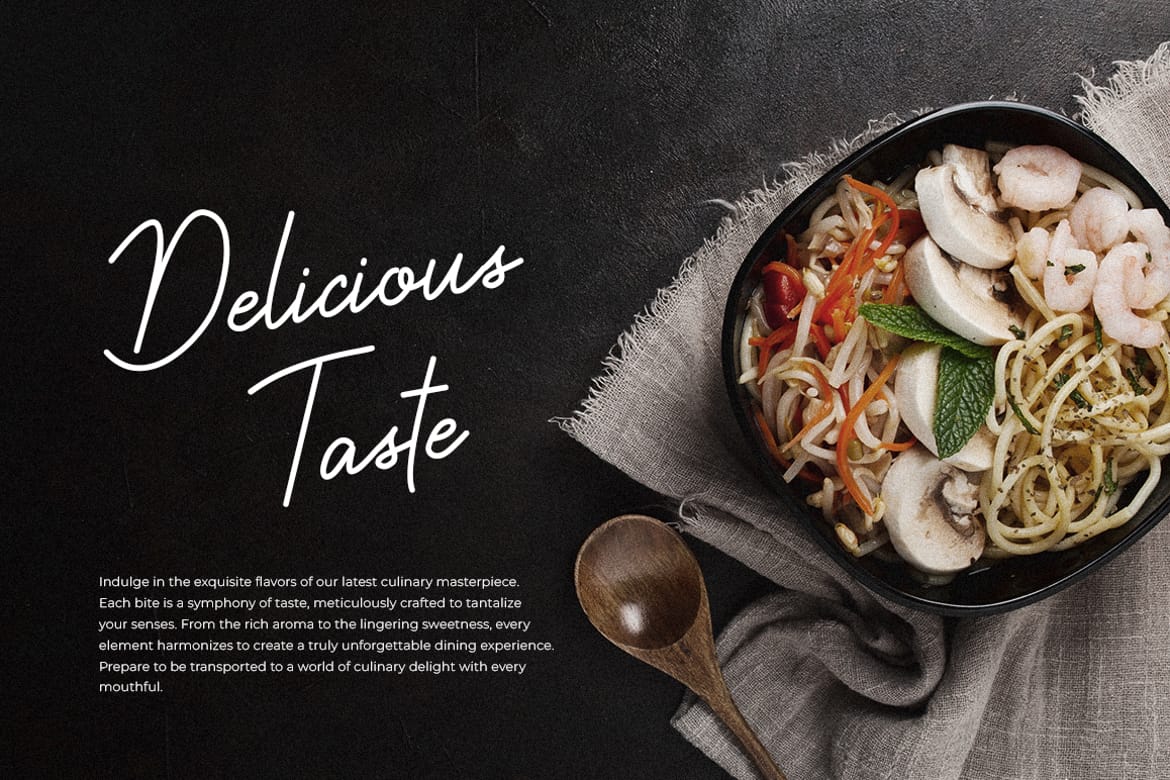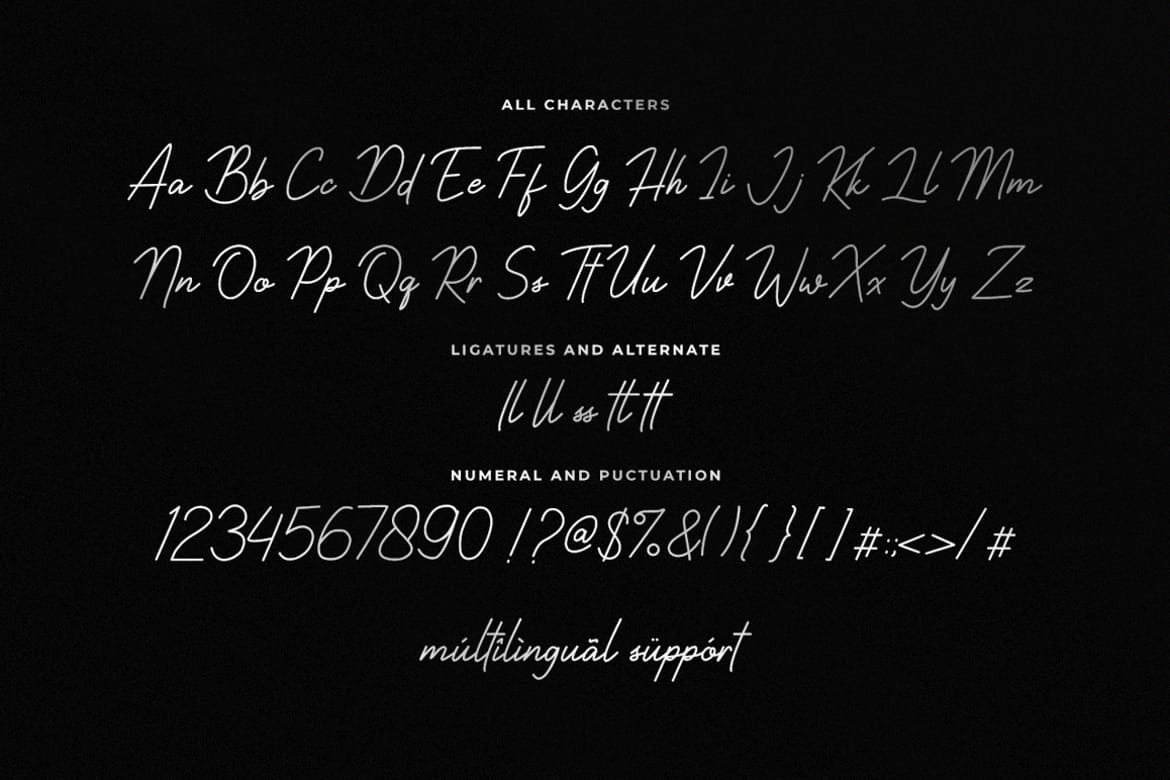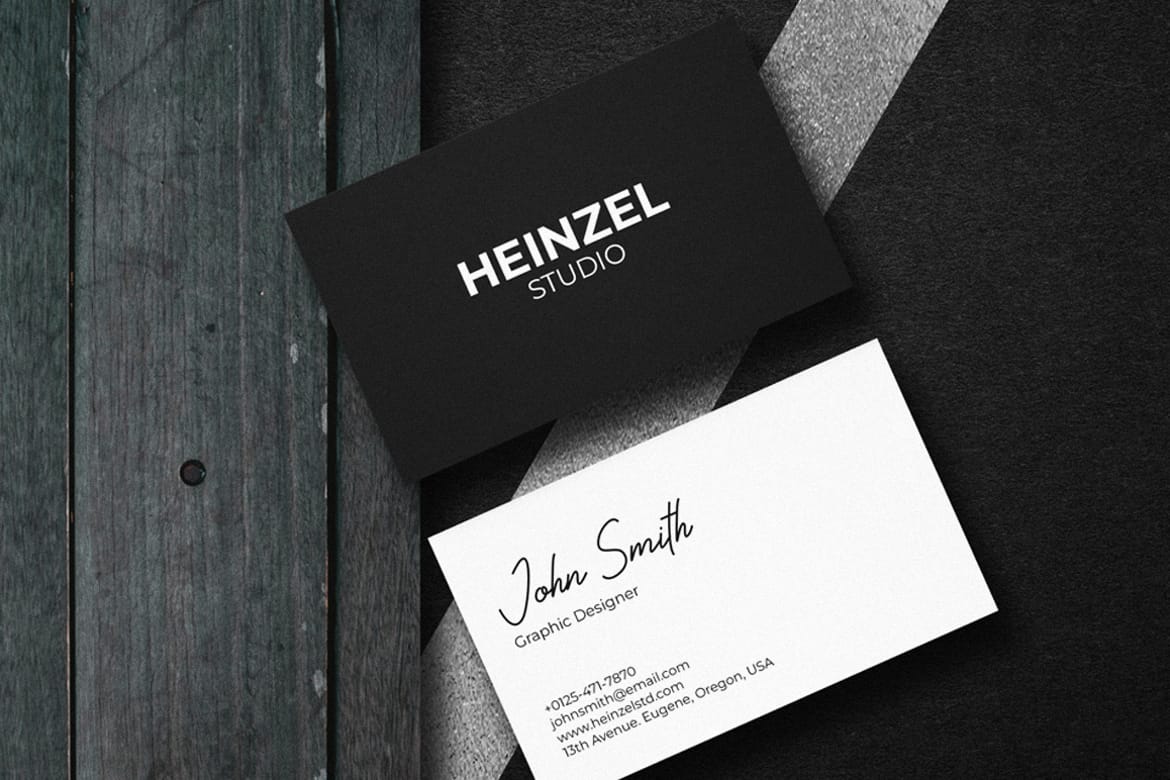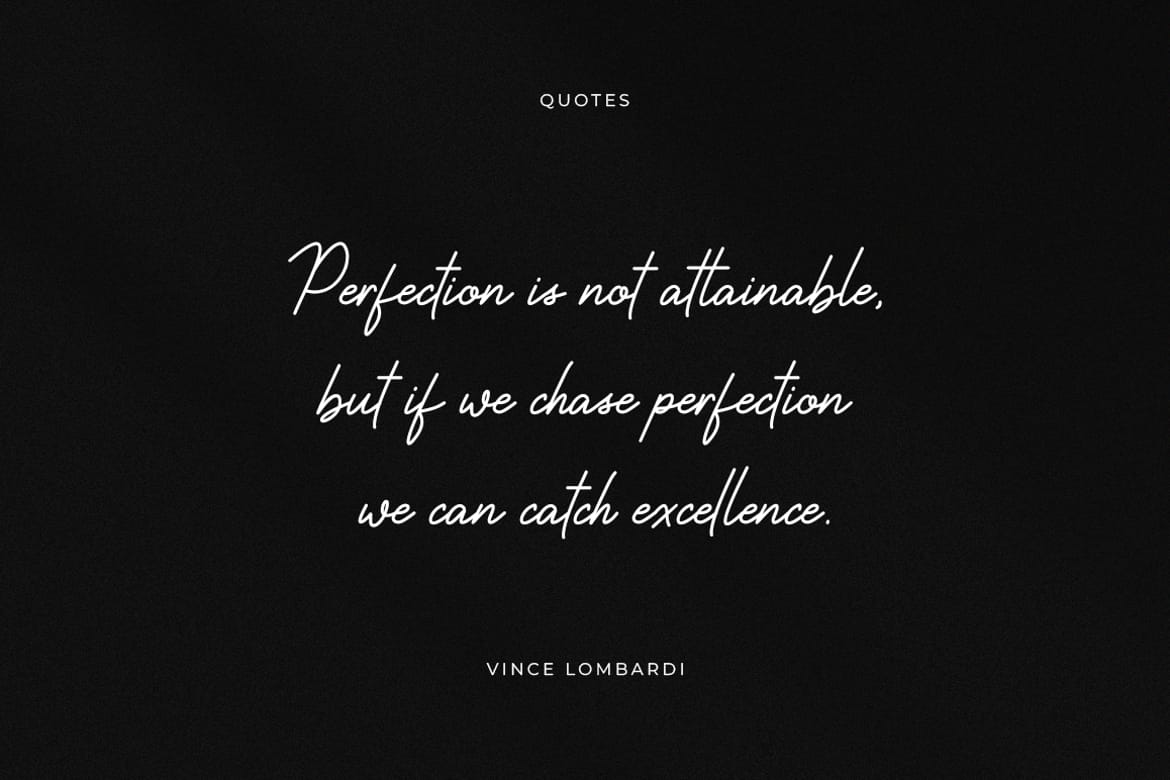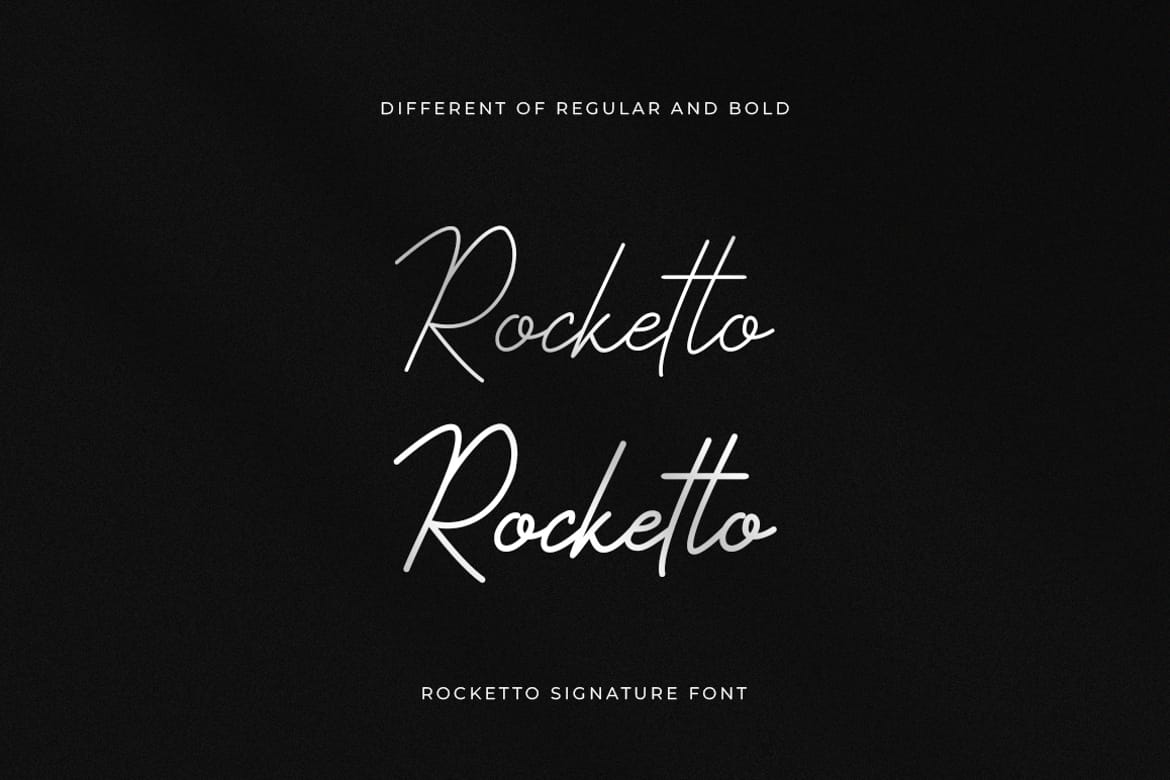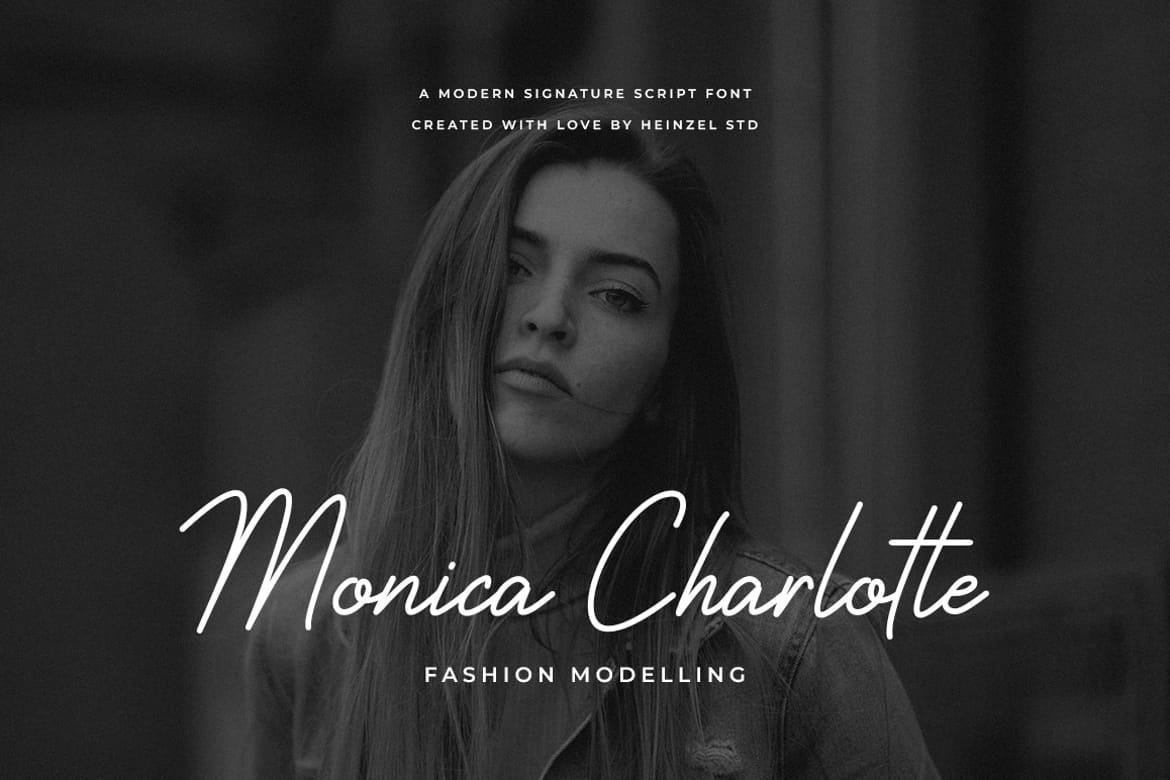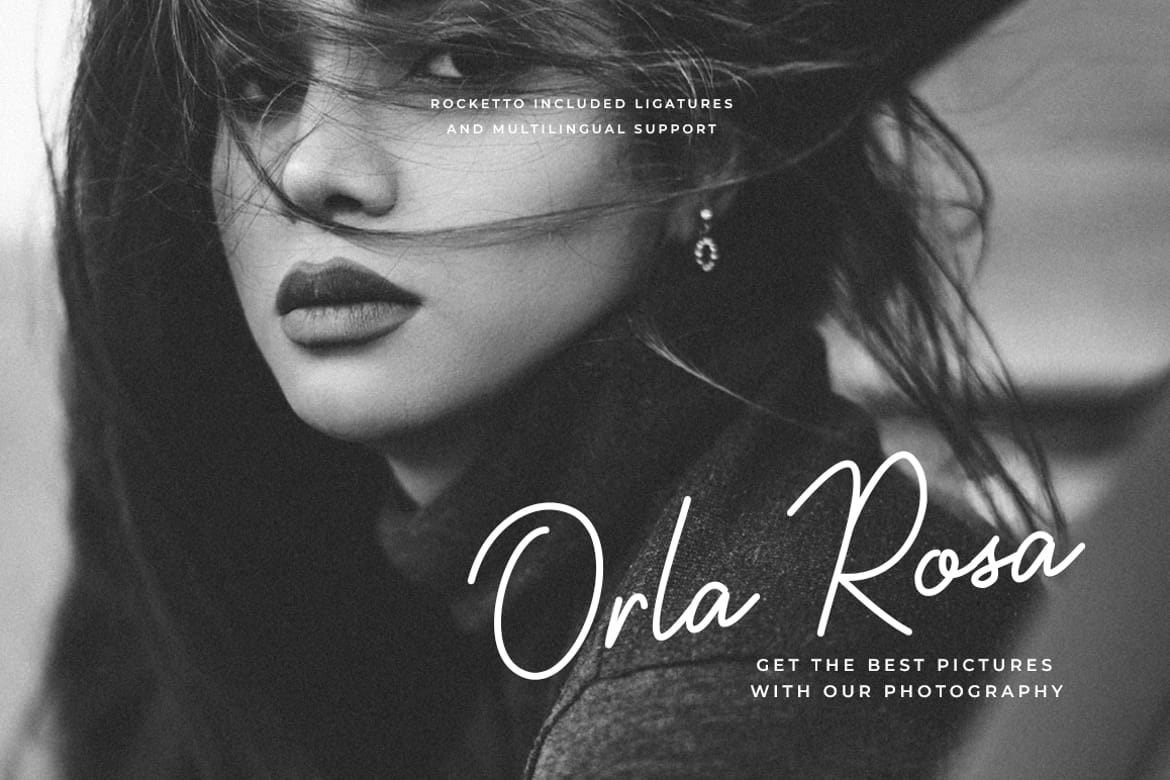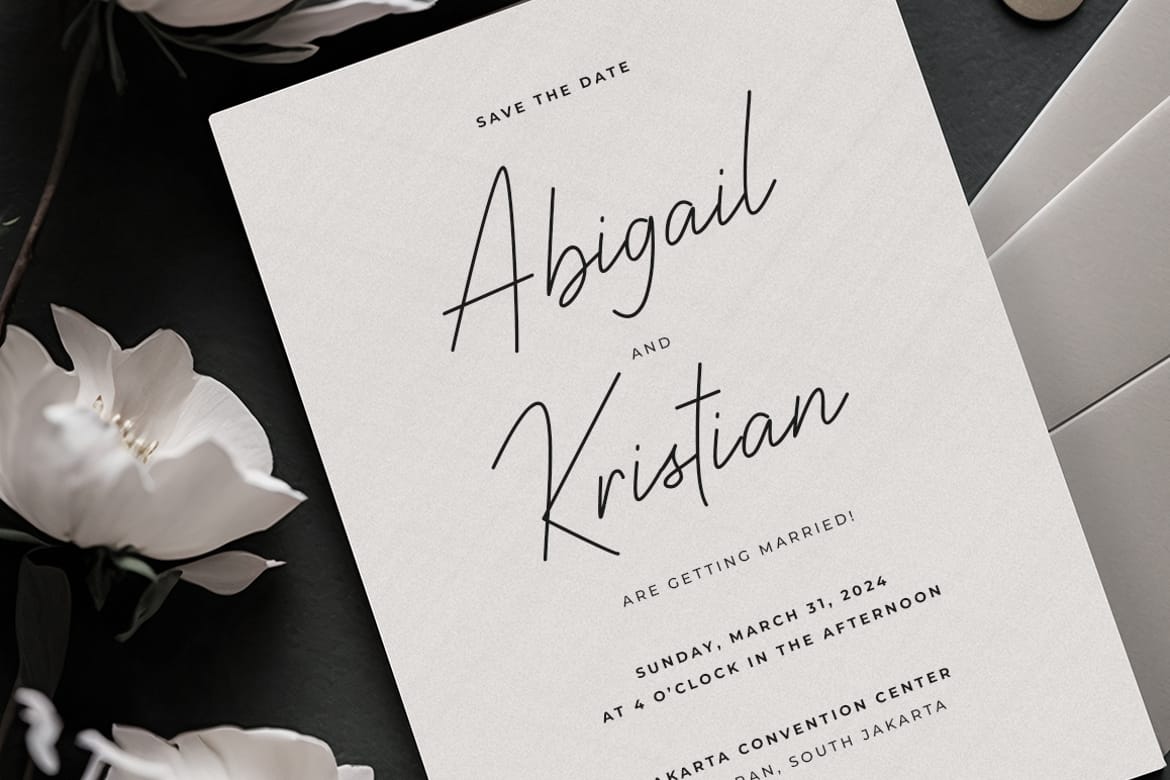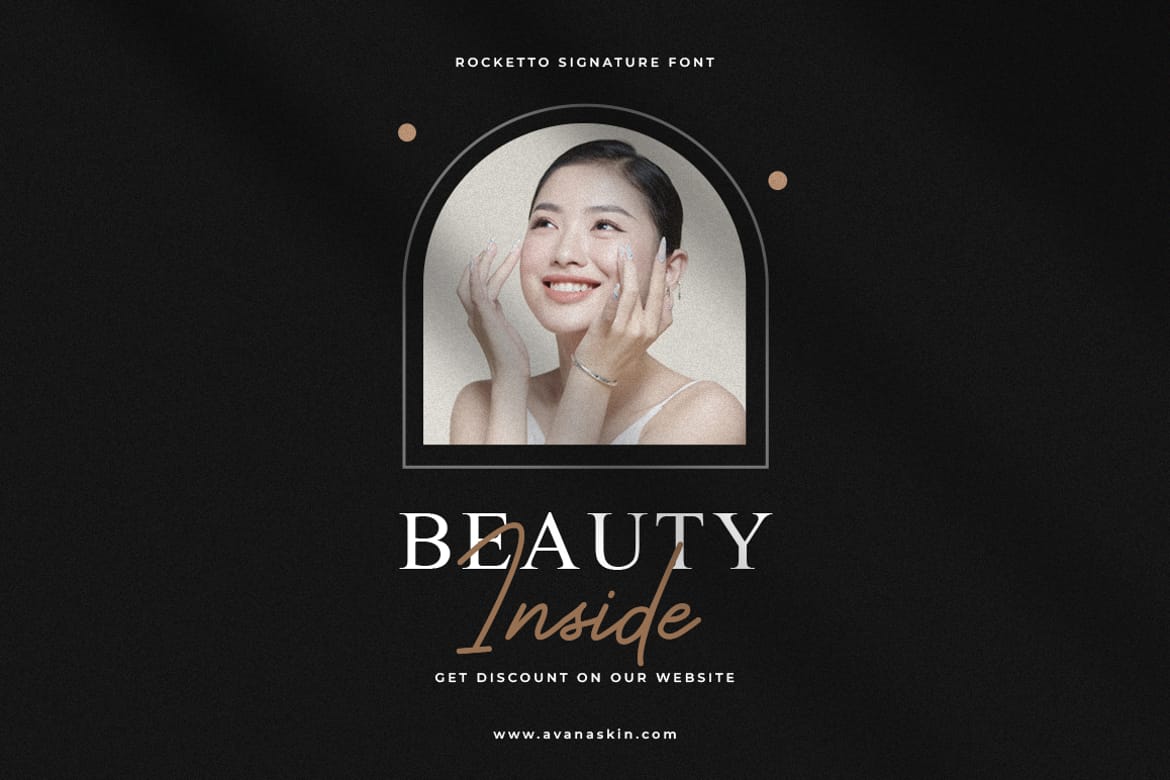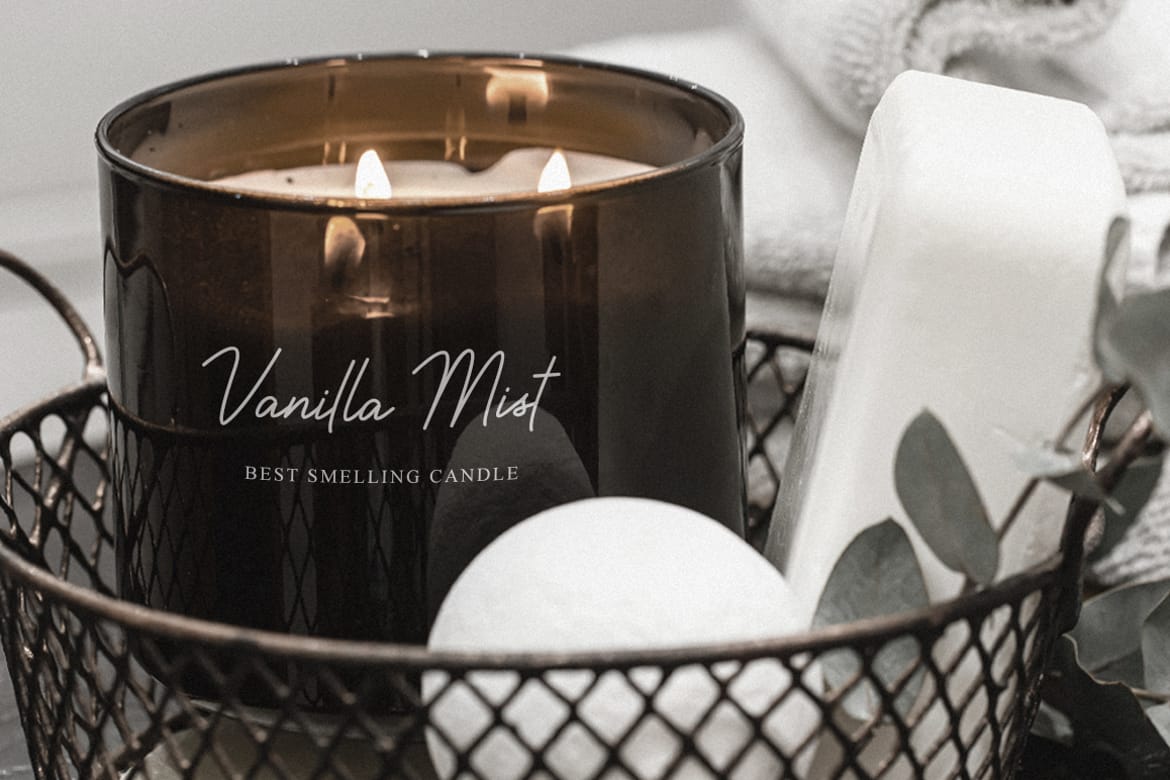
Rocketto is a modern signature script font designed to bring elegance, authenticity, and sophistication to your creative projects. Featuring smooth handwritten strokes, stylish ligatures, and beautiful character connections, Rocketto delivers a natural signature look that feels both professional and personal. Its clean curves and contemporary style make it an excellent choice for branding, logos, social media graphics, fashion editorials, product packaging, wedding stationery, and luxury marketing materials.
- 2 Weights (Regular and Bold)
- Ligatures
- Multilingual Supports